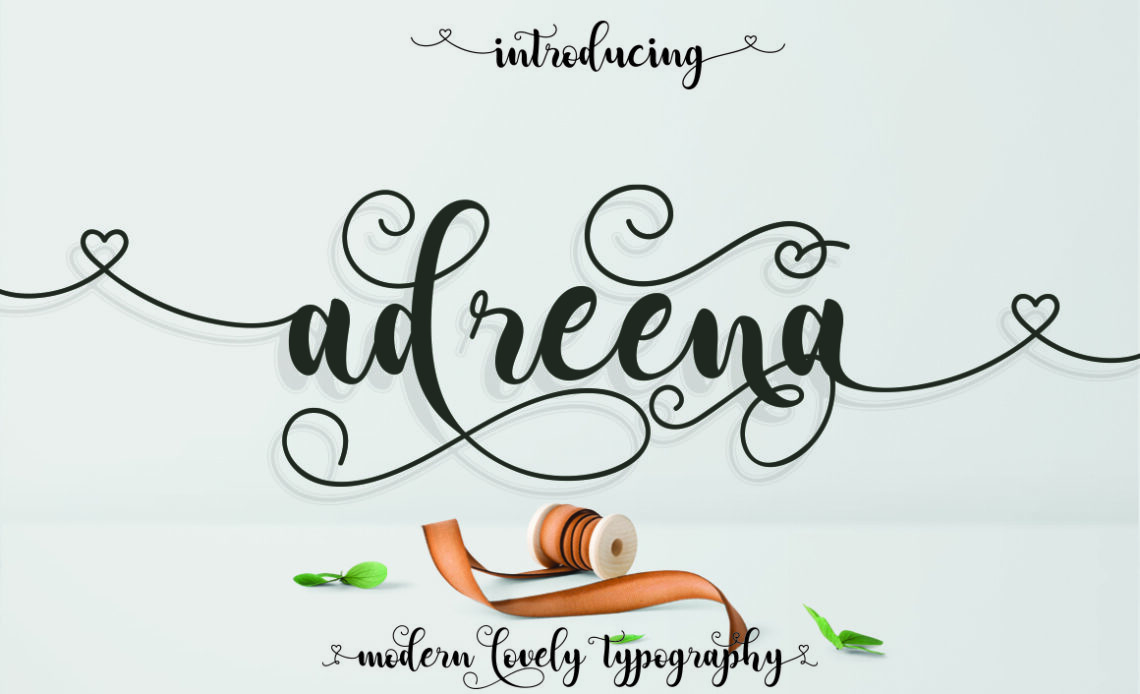
Dive into the world of Adreena Script, a captivating dance of letters designed to ignite your creativity and transform your designs into works of art. This extraordinary script, handcrafted by the skilled Aqr Typeface, exudes a vibrant personality, ready to add a touch of whimsy and elegance to your projects.
Embark on a typographic journey with Adreena Script, a font that embodies the spirit of joy and playfulness. Its fluid strokes and enchanting curves will infuse your designs with a sense of movement and energy, capturing the attention of your audience. Experience the thrill of crafting stunning logos, eye-catching social media graphics, or heartfelt invitations that leave a lasting impression.
With its versatile nature, Adreena Script effortlessly adapts to diverse design styles and themes. Whether you seek a vintage aesthetic with a modern twist or a touch of rustic charm, this remarkable font seamlessly blends into your vision, elevating your designs to new heights. Unleash your creativity and explore endless possibilities, from whimsical wedding invitations to vibrant marketing campaigns.
Adreena Script's playful nature makes it an ideal choice for designers seeking to add a touch of personality to their work. Its lively characters bring life to your designs, creating a sense of connection and engagement with your audience. Whether you're a seasoned designer or just starting your creative journey, Adreena Script is the perfect companion to add a touch of magic to your projects.
So, embrace the allure of Adreena Script, a font that sparks imagination and ignites creativity. Let your designs dance with joy and captivate your audience with every stroke. Experience the transformative power of this enchanting script and unlock a world of endless design possibilities.